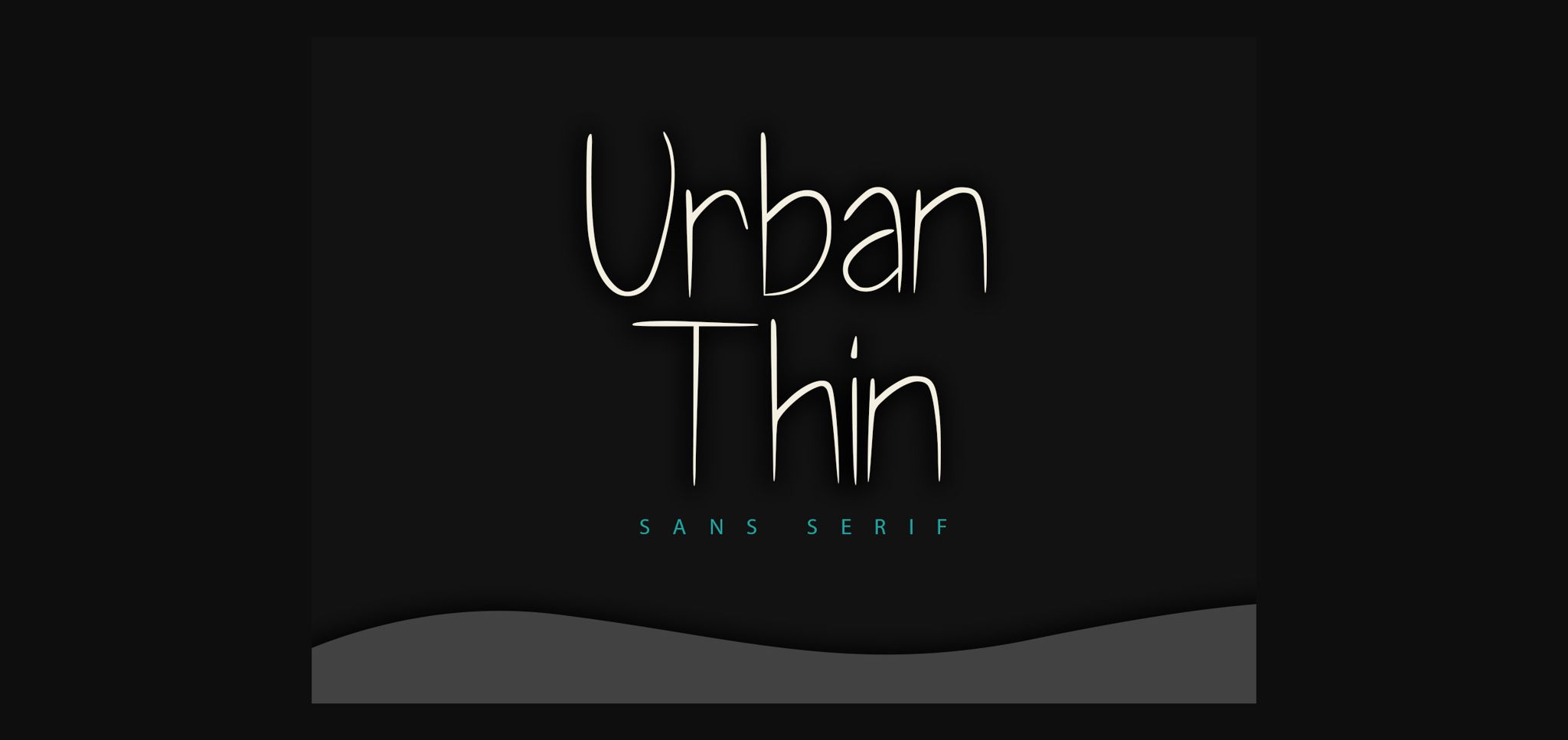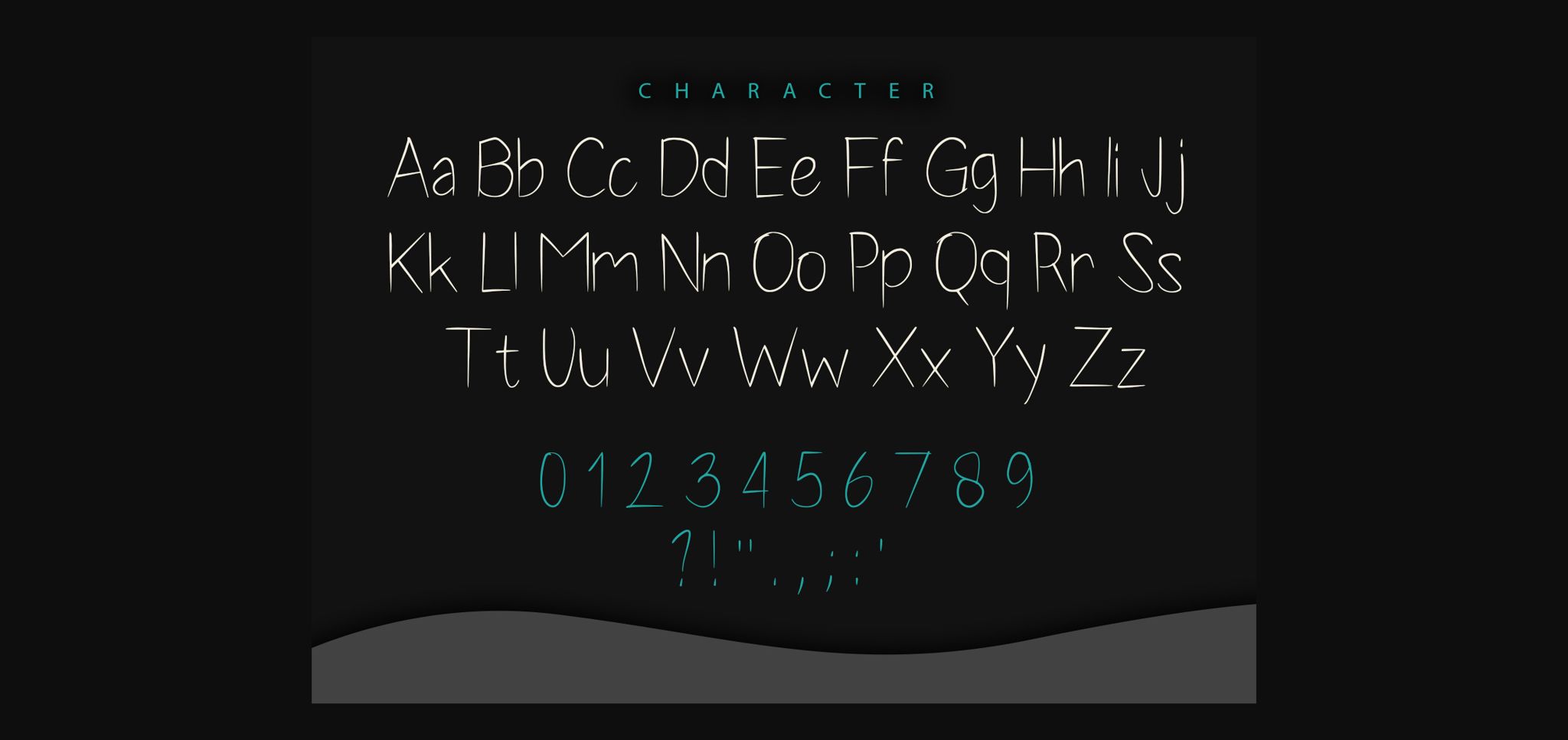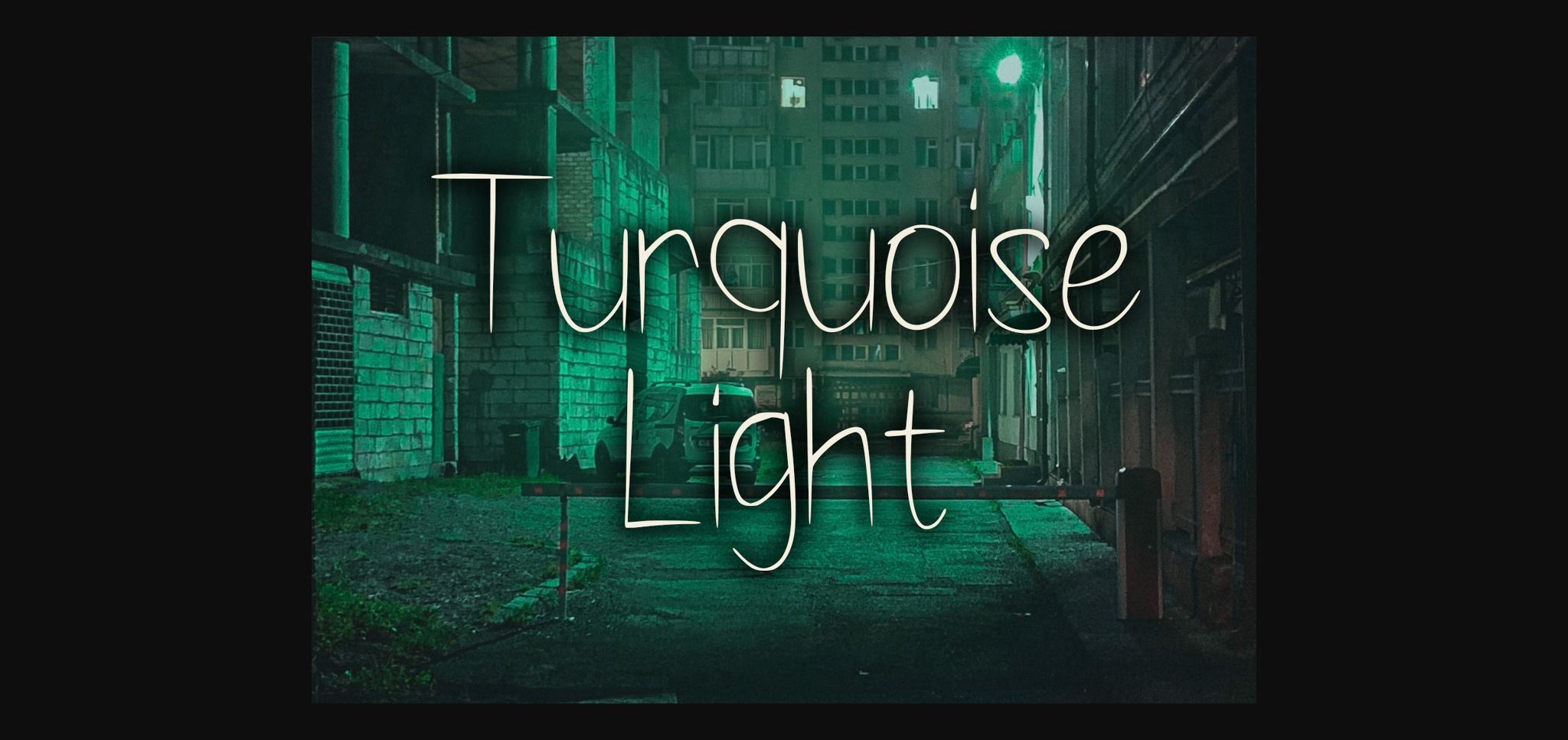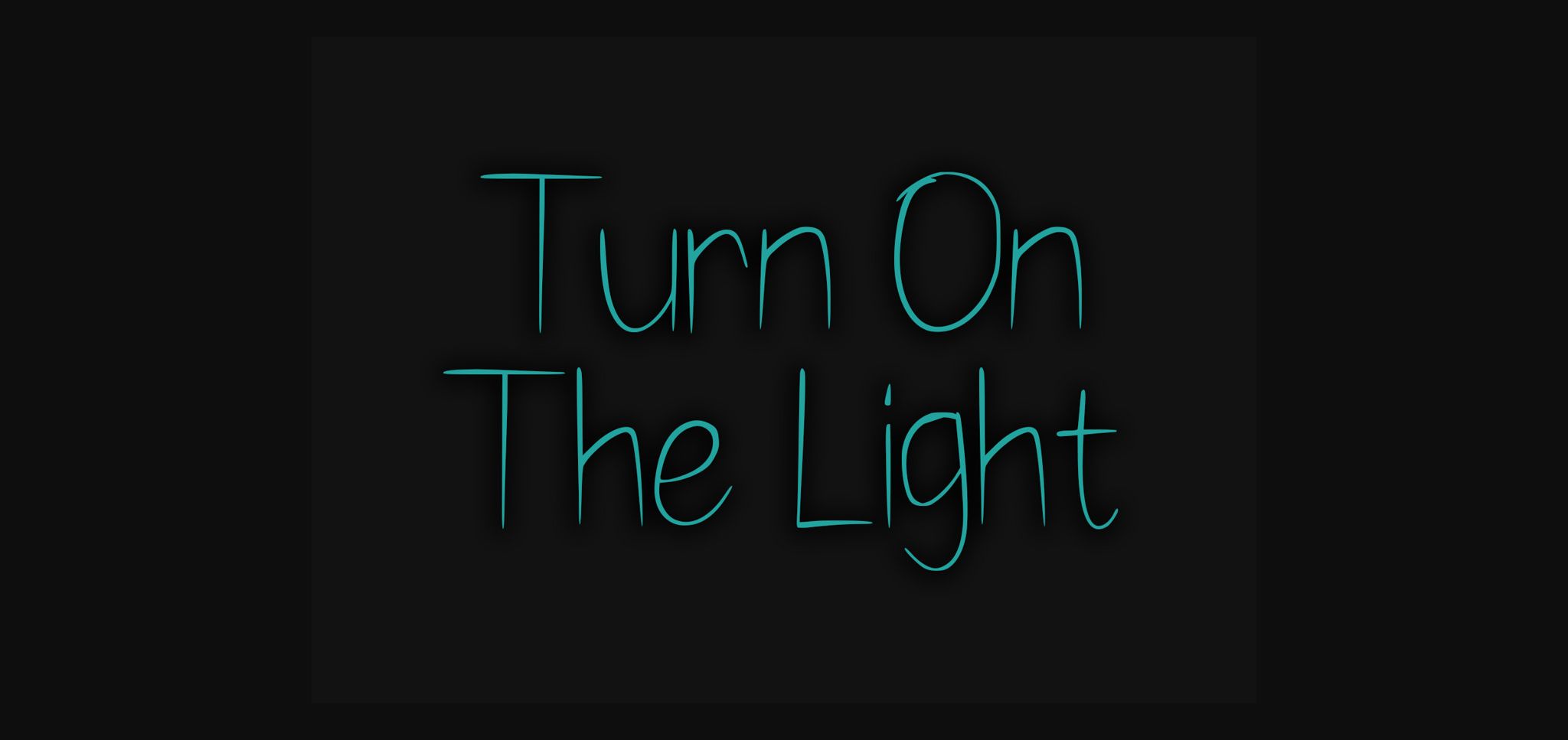
Urban Thin Font
About Urban Thin Font
Urban Thin is a cool, thin-lettered sans serif typeface. This typeface can be used for branding, posters, apparel, merchandise, stickers, or anything that needs a spicy, unique look.